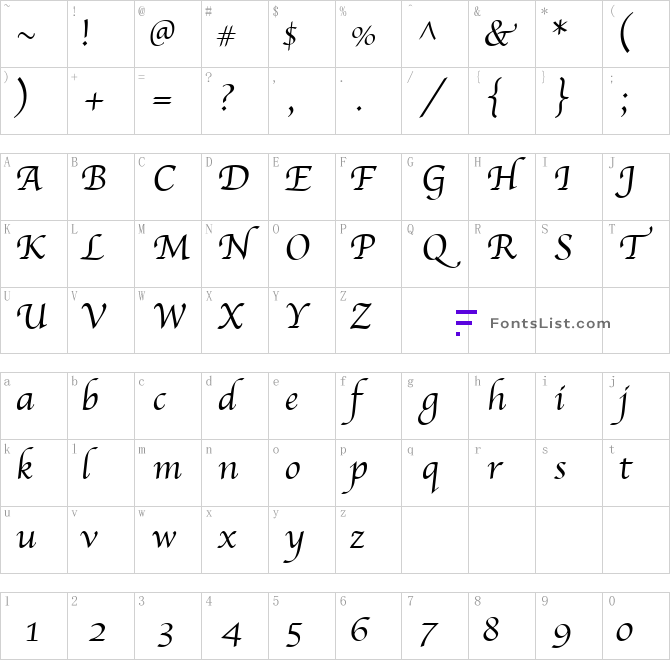
- Font Name:Apple Chancery
Apple-Chancery.ttf is a very beautiful artistic font, Apple-Chancery.ttf is widely used in the design and printing of various books and pictures,Apple-Chancery.ttf has a strong visual impact,Apple-Chancery.ttf is a commonly used font in newspapers, magazines and books, and is used in posters, e-commerce Poster design, store design, logo design, font design and other fields.Apple-Chancery.